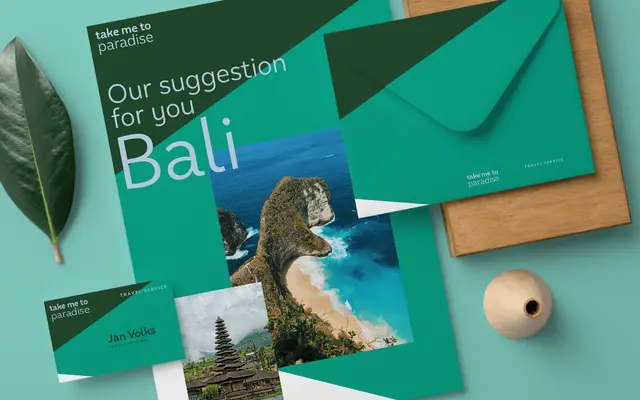
A good-natured humanist sans in six weights with independently drawn italics, distinguished by bulged bowls and a characterful swooping K.
Faible is a humanist sans with handwriting-inflected details — notably the ballooned bowls of B, P and R and a curved R leg — that give it a warmth suited to display work on book covers, posters and packaging. Its italics are not sloped romans but independently designed with their own rhythm. The 12-font family ships with over 600 characters, covering ligatures, old-style figures, case-sensitive forms, arrows and tabular figures for more demanding typographic tasks.
Described explicitly as a humanist typeface with details referencing handwriting, including bulged bowls, a curved R leg, and independently drawn italics with internal dynamic — all hallmarks of humanist sans design.